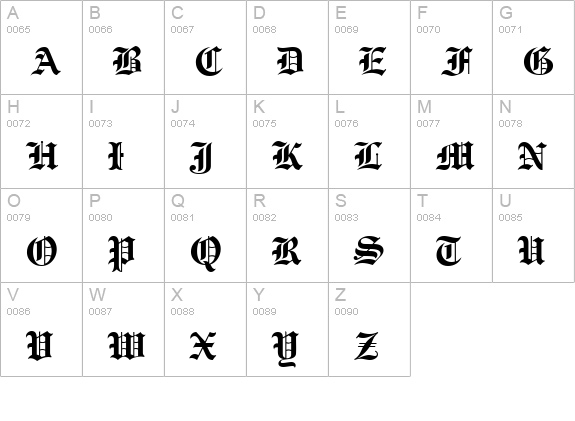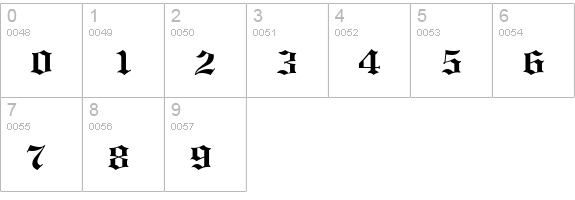
E780-Blackletter-Bold is a strong, high-contrast variant in the E780 typeface family \xE2\x80\x94 well suited to headlines, attention-grabbing titles, and strong calls-to-action.
E780-Blackletter-Bold is a striking and impactful font that exudes a sense of historical elegance and sophistication. The bold blackletter style of this font gives it a timeless appeal, making it perfect for adding a touch of drama to your designs. Whether you're creating invitations, posters, or branding materials, E780-Blackletter-Bold is sure to make a bold statement. The best part? This stunning font is available for free download at FontsMarket.com. Don't miss out on the opportunity to enhance your projects with the unique charm of E780-Blackletter-Bold. Download it today and let your creativity soar!